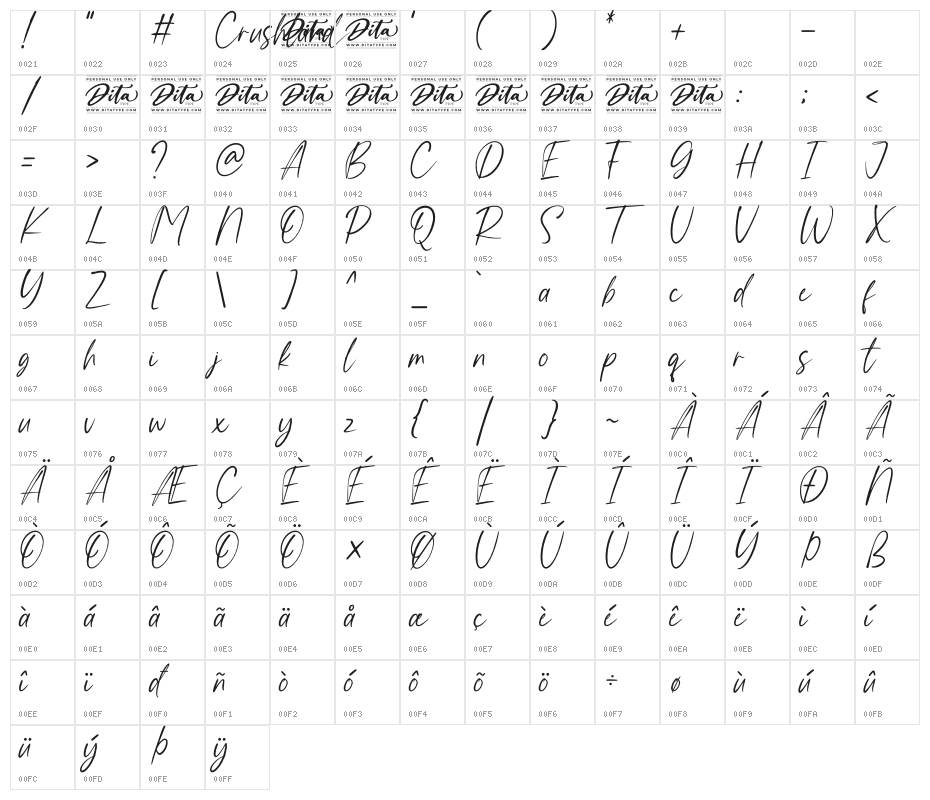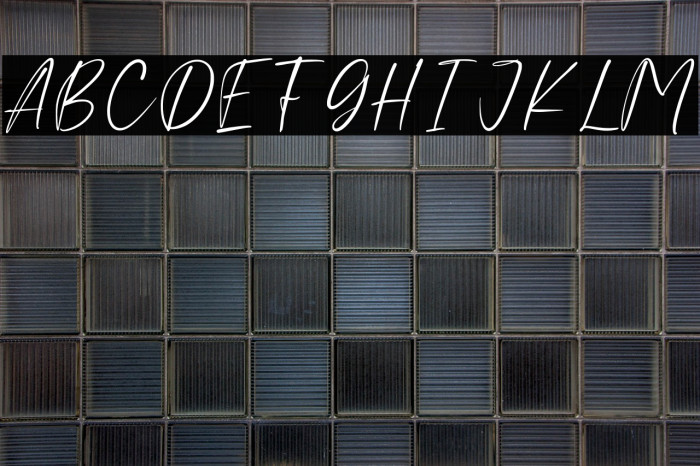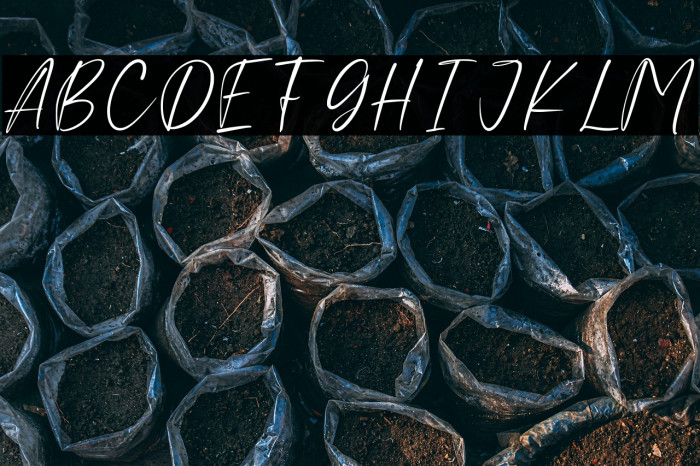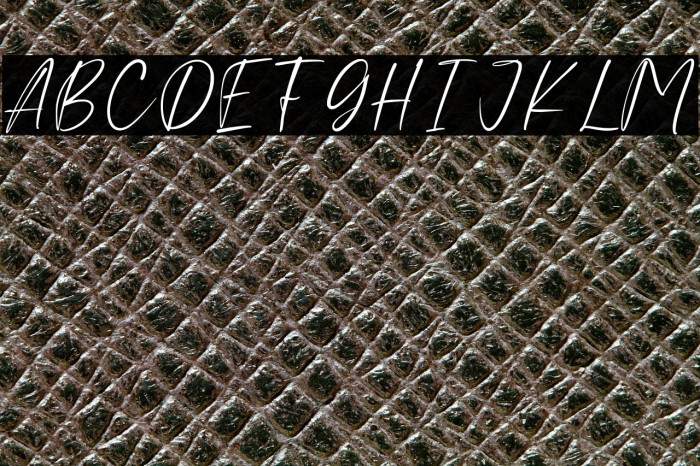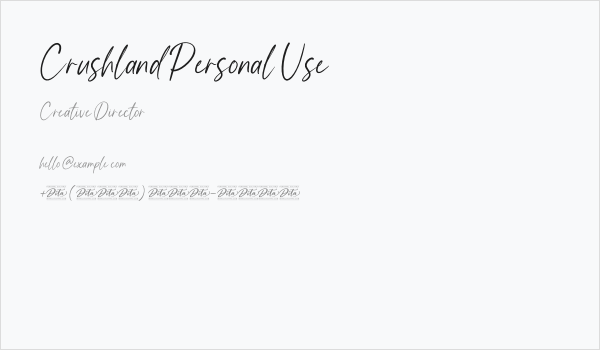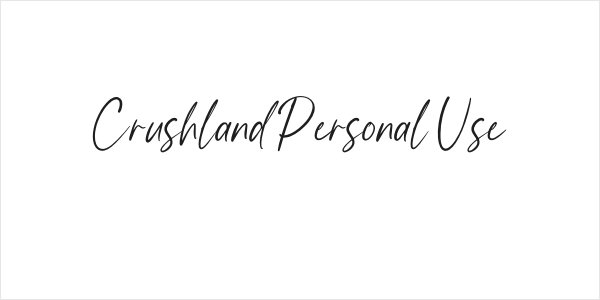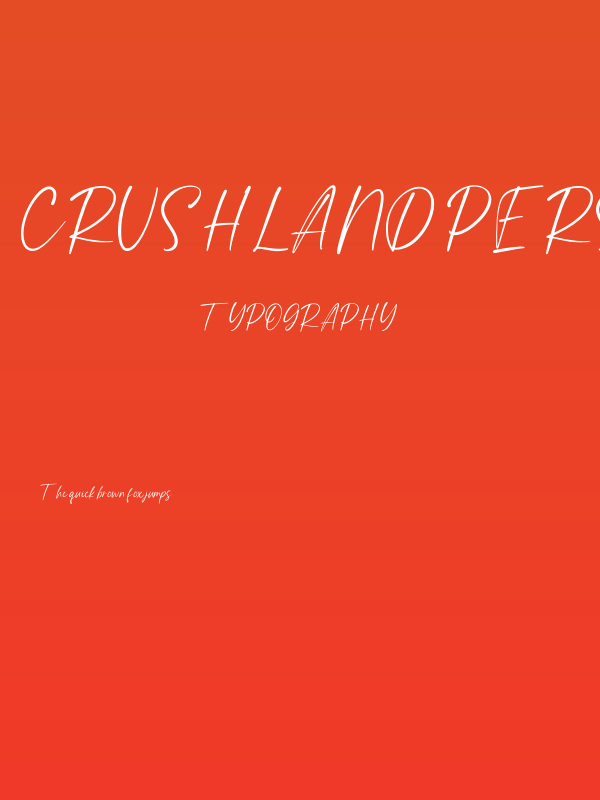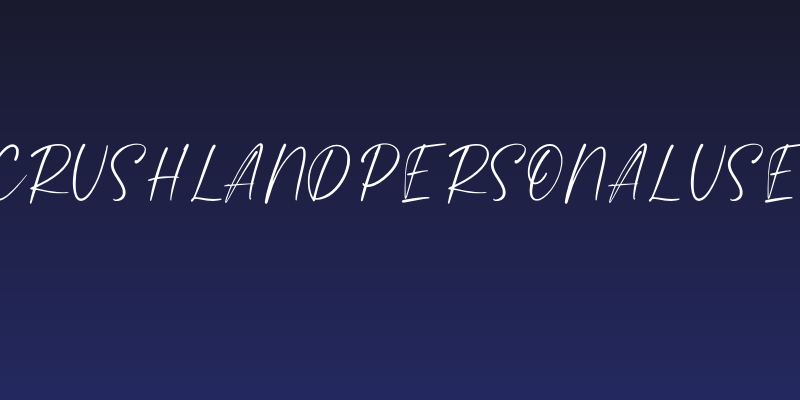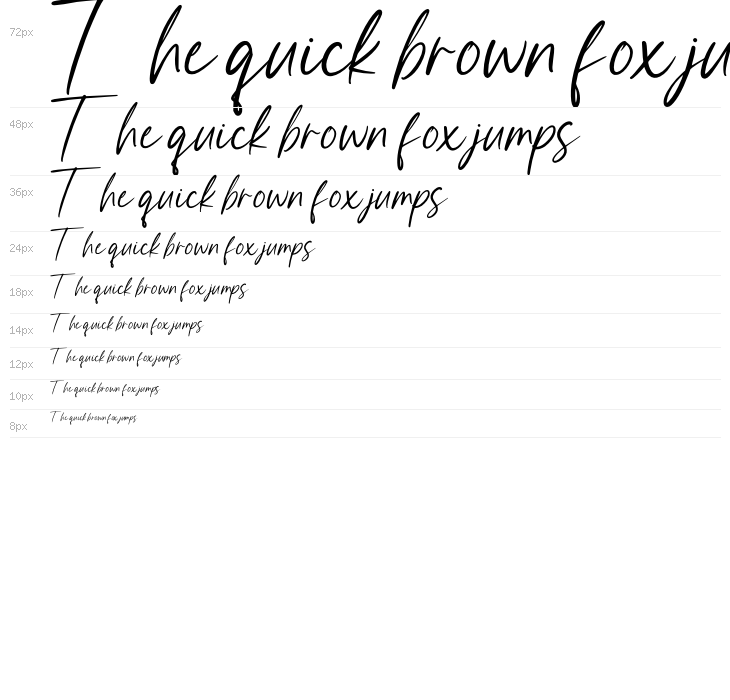
Crushland Personal Use Font
Crushland Personal Use Description
This font features a dynamic and fluid handwritten style, characterized by its elegant and flowing letterforms. The uppercase letters are tall and slender, with a slight slant that adds a sense of movement and grace. The lowercase letters maintain a consistent flow, with smooth curves and a natural, organic feel. The numbers and special characters are crafted with the same attention to detail, ensuring a cohesive look across all elements. This font exudes a modern yet personal touch, making it ideal for projects that require a handwritten aesthetic.